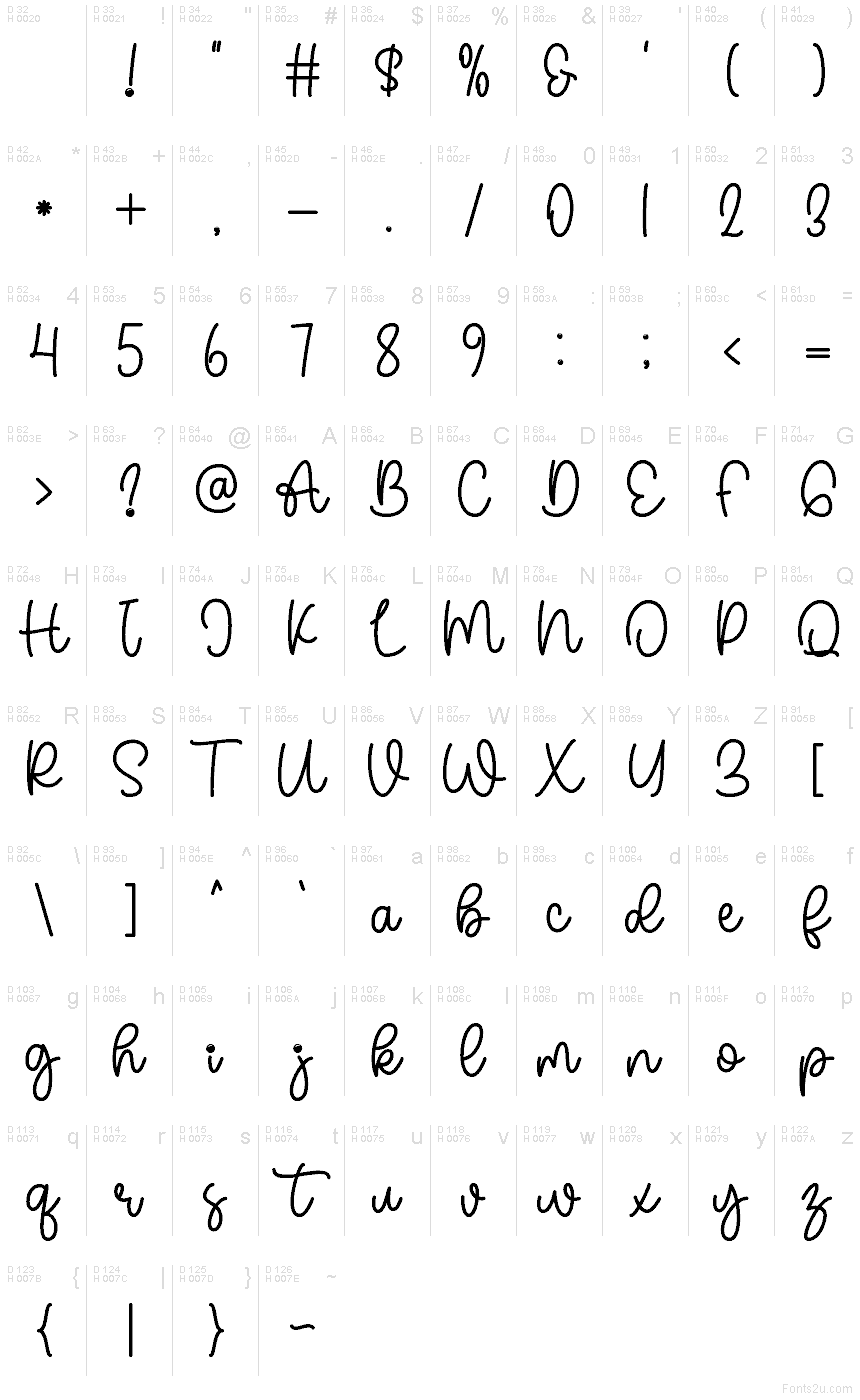
Bobamilk
Bobamilk font by Fillo Graphic is a free handwritten font with a casual and flowing style. Modern, relaxed, and friendly, the typeface is inspired by the internet-famous boba beverage. Its design mimics the natural appearance of regular handwriting with its long fluid strokes which makes it perfect for projects that require simplicity.
Logo designs, presentation slides, social media banners or posts in addition to book titles, comic graphics or illustrations can all be worked on using this fine typeface. Blog titles or article headings are a few other options for use.